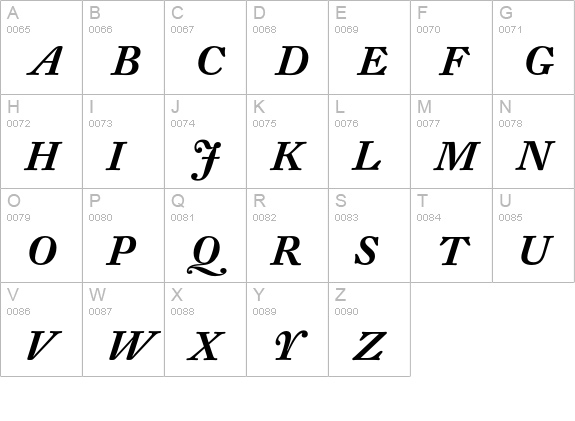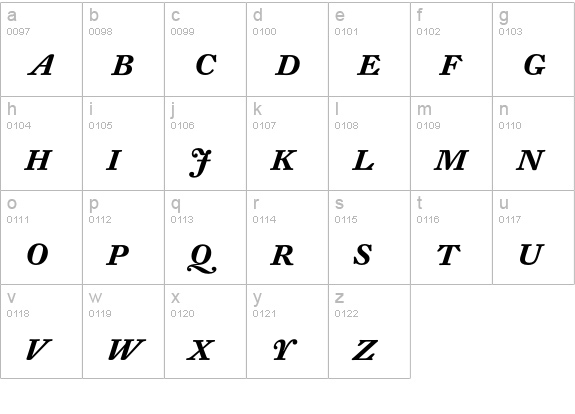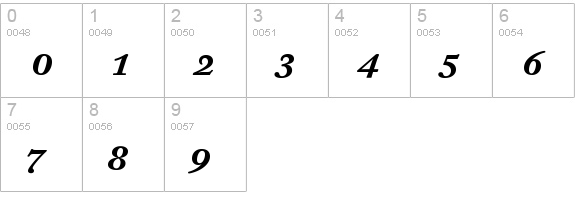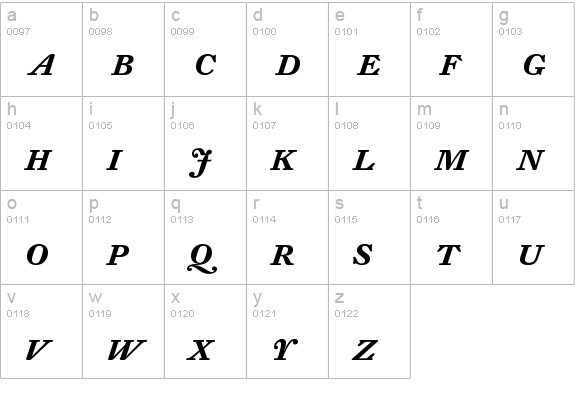
DTL Fleischmann T Medium Italic Caps is a balanced, medium-weight, italic variant in the DTL typeface family \xE2\x80\x94 well suited to sub-headlines, navigation, and balanced editorial work.
The DTL Fleischmann T Medium Italic Caps font is a versatile and elegant typeface that exudes sophistication and professionalism. With its medium weight and stylish italic design, this font is perfect for adding a touch of refinement to any project. Its clean lines and carefully crafted letterforms make it a timeless choice for a wide range of applications. What sets this font apart is not only its impeccable design, but also the fact that it is available for free download at FontsMarket.com. This means that you can easily access and use this high-quality font without any cost, making it a valuable resource for designers, creatives, and anyone in need of a premium typeface without breaking the bank. Whether you're working on branding materials, editorial design, or any other project that requires a touch of sophistication, the DTL Fleischmann T Medium Italic Caps font is a fantastic choice. Download it for free today at FontsMarket.com and elevate your designs with this exquisite typeface.